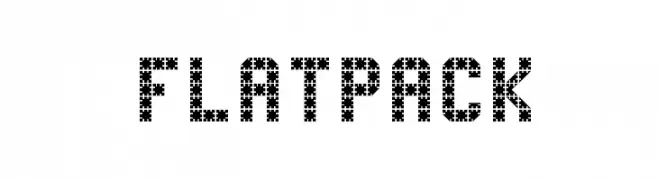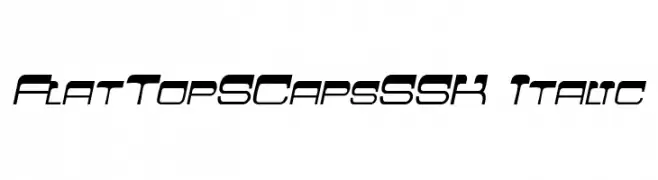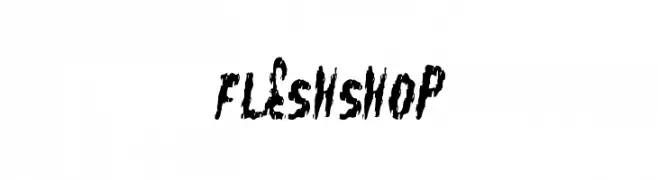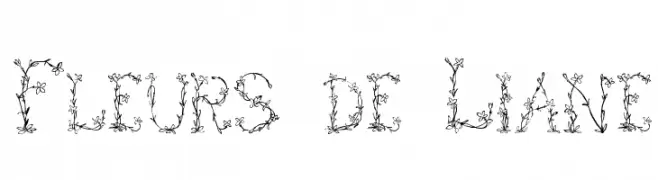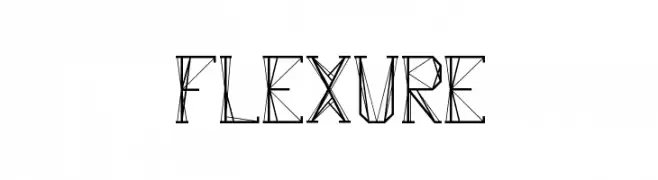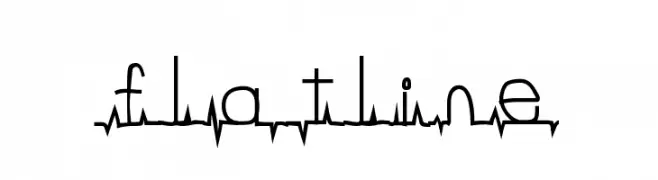
A bold, pixelated font with a geometric, digital style.
A bold, hand-drawn font with a vintage, rustic charm.
A distressed, grunge-style font with jagged, irregular edges.
A geometric, web-like font with intersecting lines and sharp edges.
A bold, geometric font with a futuristic and angular design.
A bold, geometric font with sharp angles and unique cutouts.